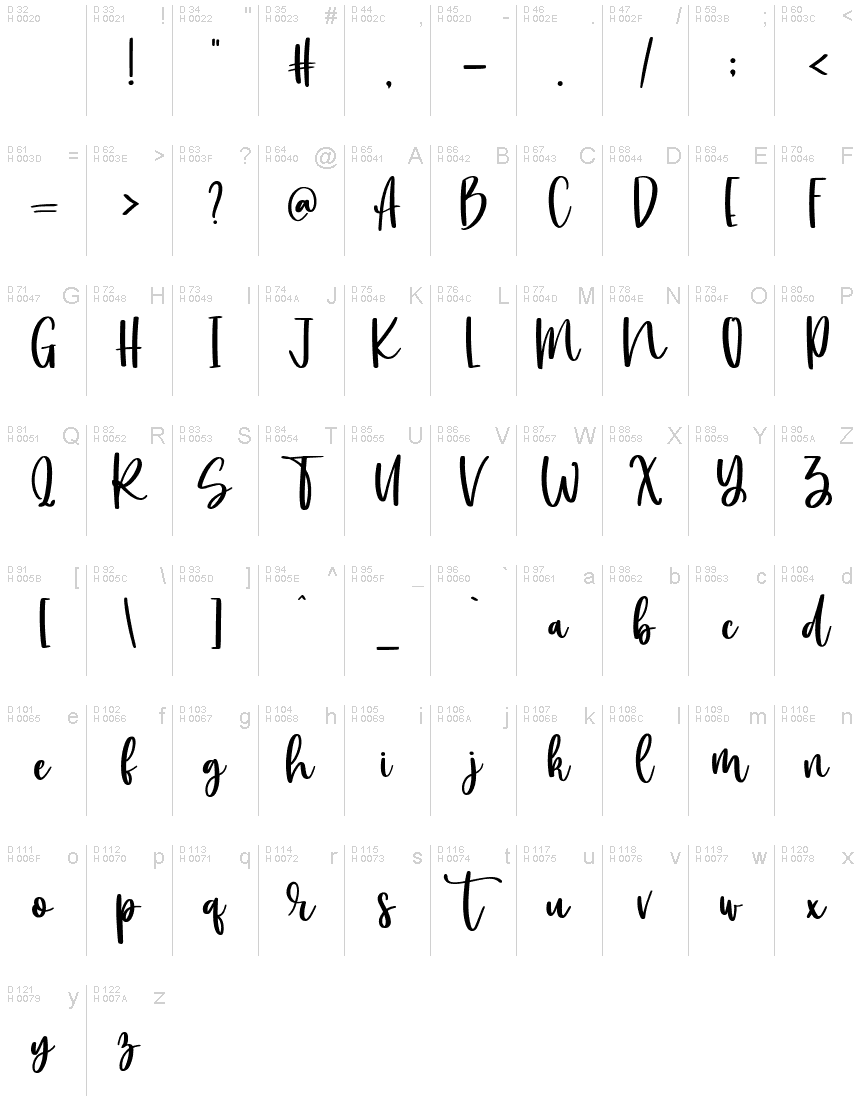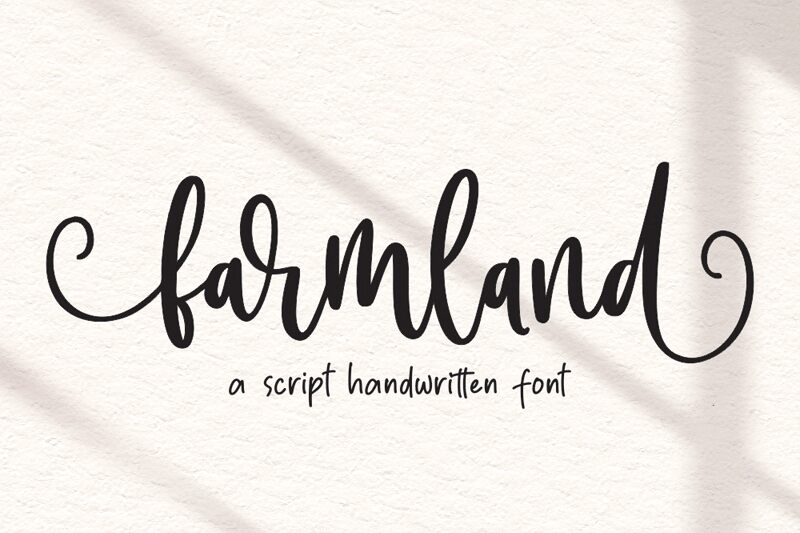
farmland
Farmland emerges from Mozatype's creative studio, bringing the warmth and authenticity of handwritten script to your fingertips. This quirky, natural hand-drawn font embodies a blend of rustic charm and elegant design, making it an ideal choice for a myriad of creative endeavors. Whether you're elevating your branding with a touch of whimsy or designing heartfelt wedding invitations, Farmland adds a bespoke feel that resonates with viewers.
Perfect for personalizing crafts or home decor, its versatility extends to professional realms such as book covers, stationery, marketing materials, and glossy magazines. With Farmland's PUA-encoded features, accessing its full array of glyphs and ligatures is effortlessly intuitive—ensuring that your designs will stand out with both style and ease. Embrace the chic and cheerful character of Farmland Font to infuse your projects with a signature look that's both approachable and distinctive.